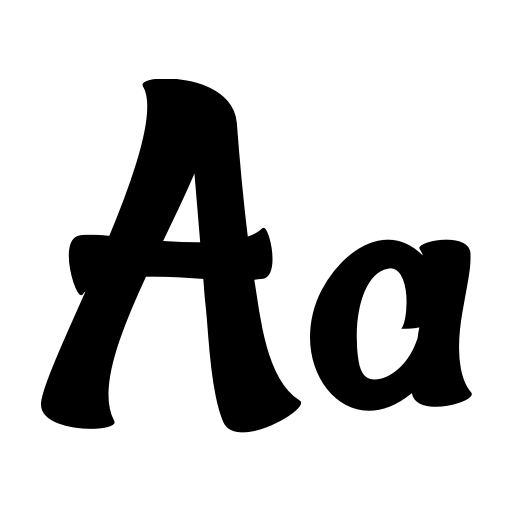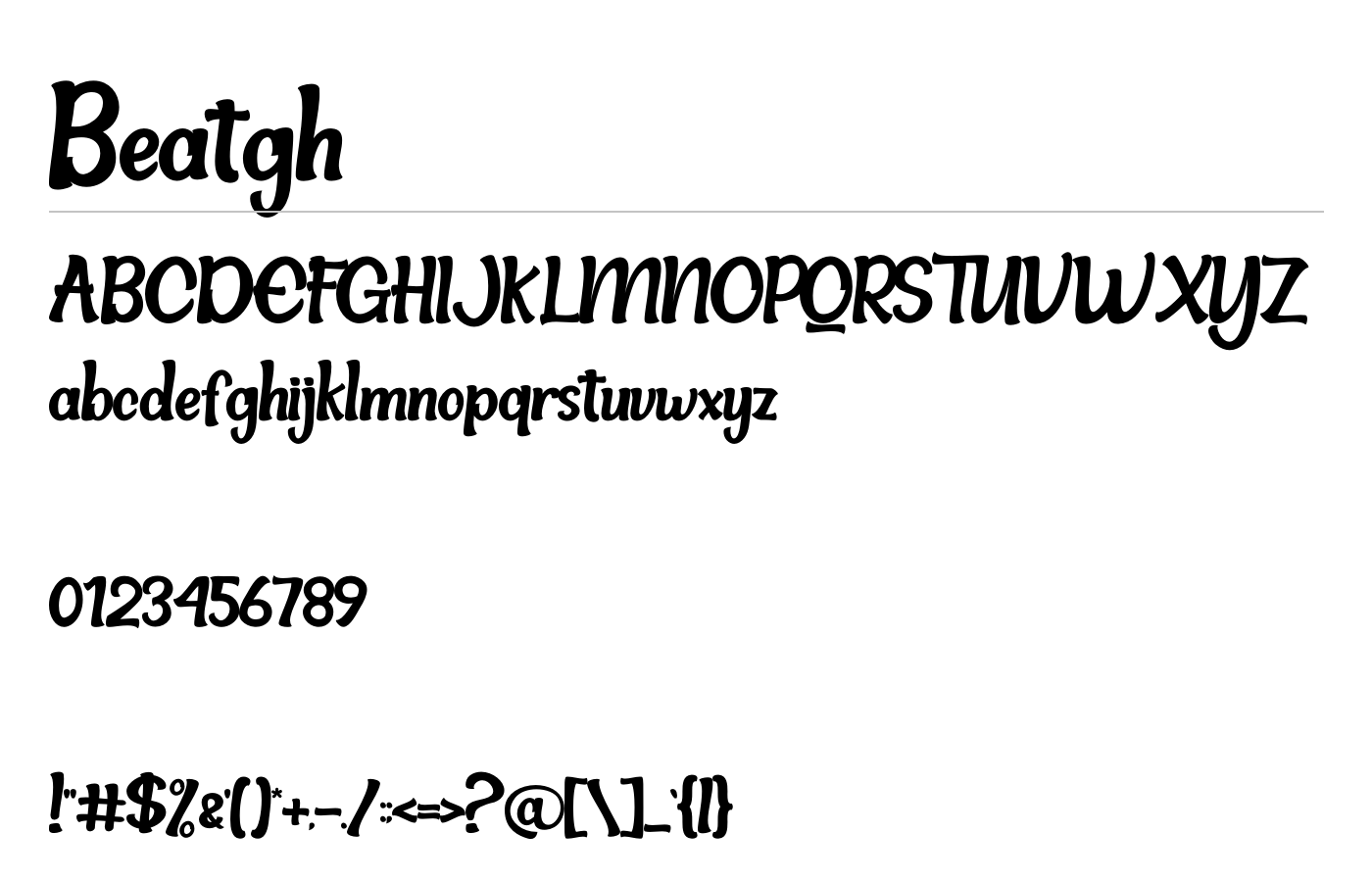
Beatgh is a playful and lively script-inspired font that features a moderately bold weight with rounded, smooth strokes and a slight upright slant, giving it a friendly yet dynamic feel. Its letterforms have a hand-drawn quality with unique, quirky shapes and a mixture of single- and double-story characters, making it ideal for creative branding, casual headlines, and informal designs that seek a warm, approachable personality. This font works well for packaging, posters, and any project needing a whimsical, energetic touch while maintaining good readability.
Beatgh Font
About Beatgh Font